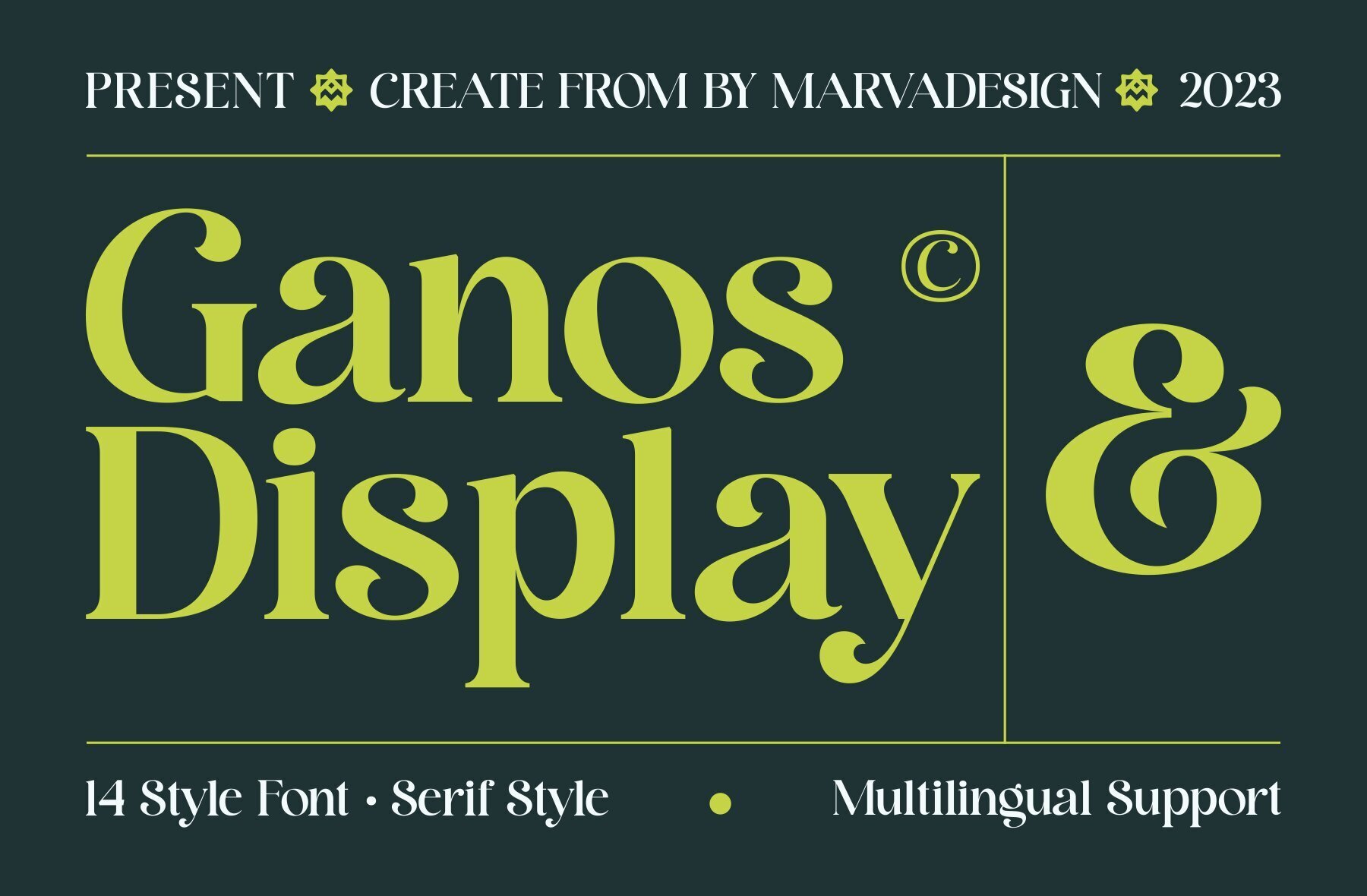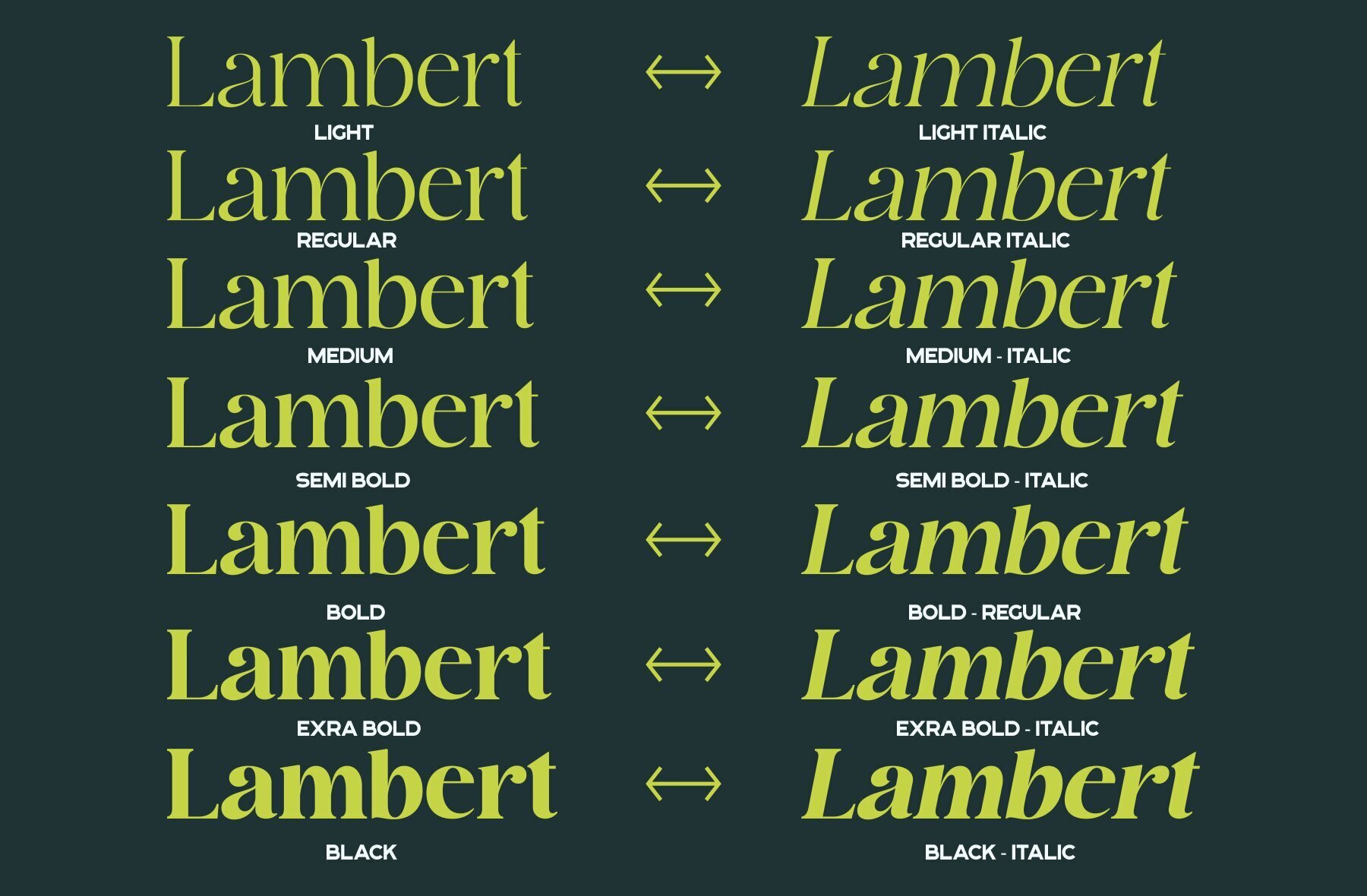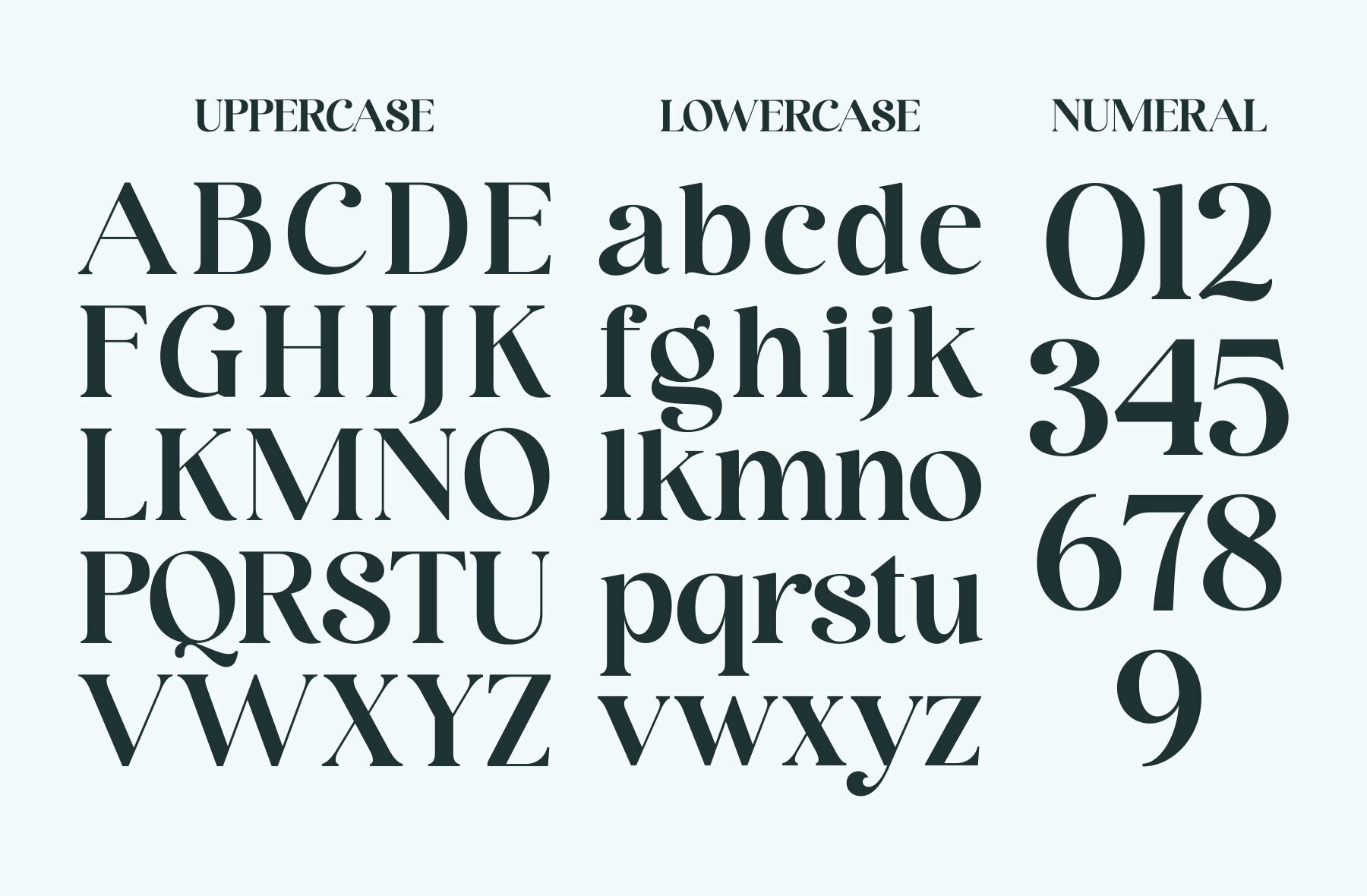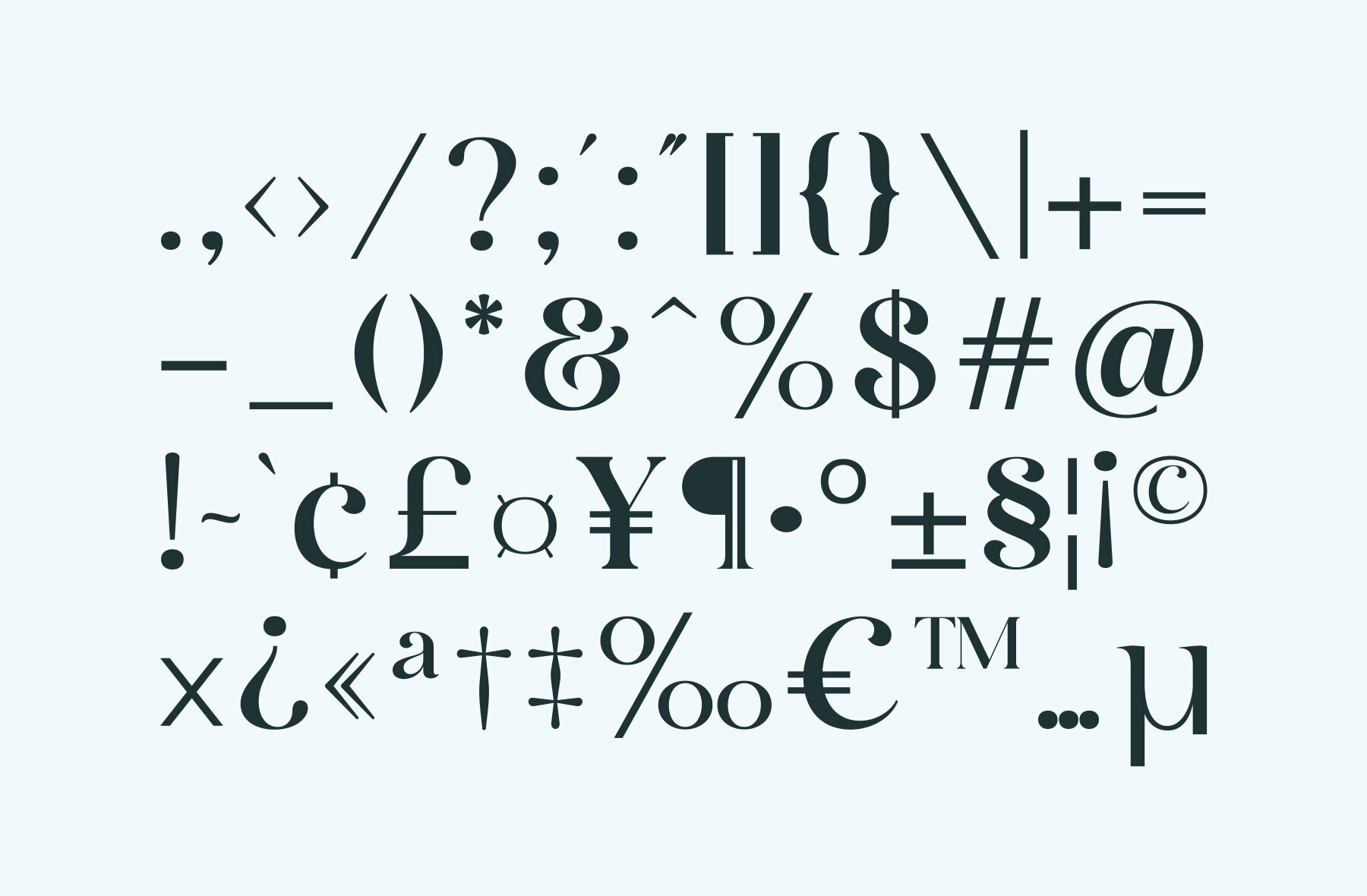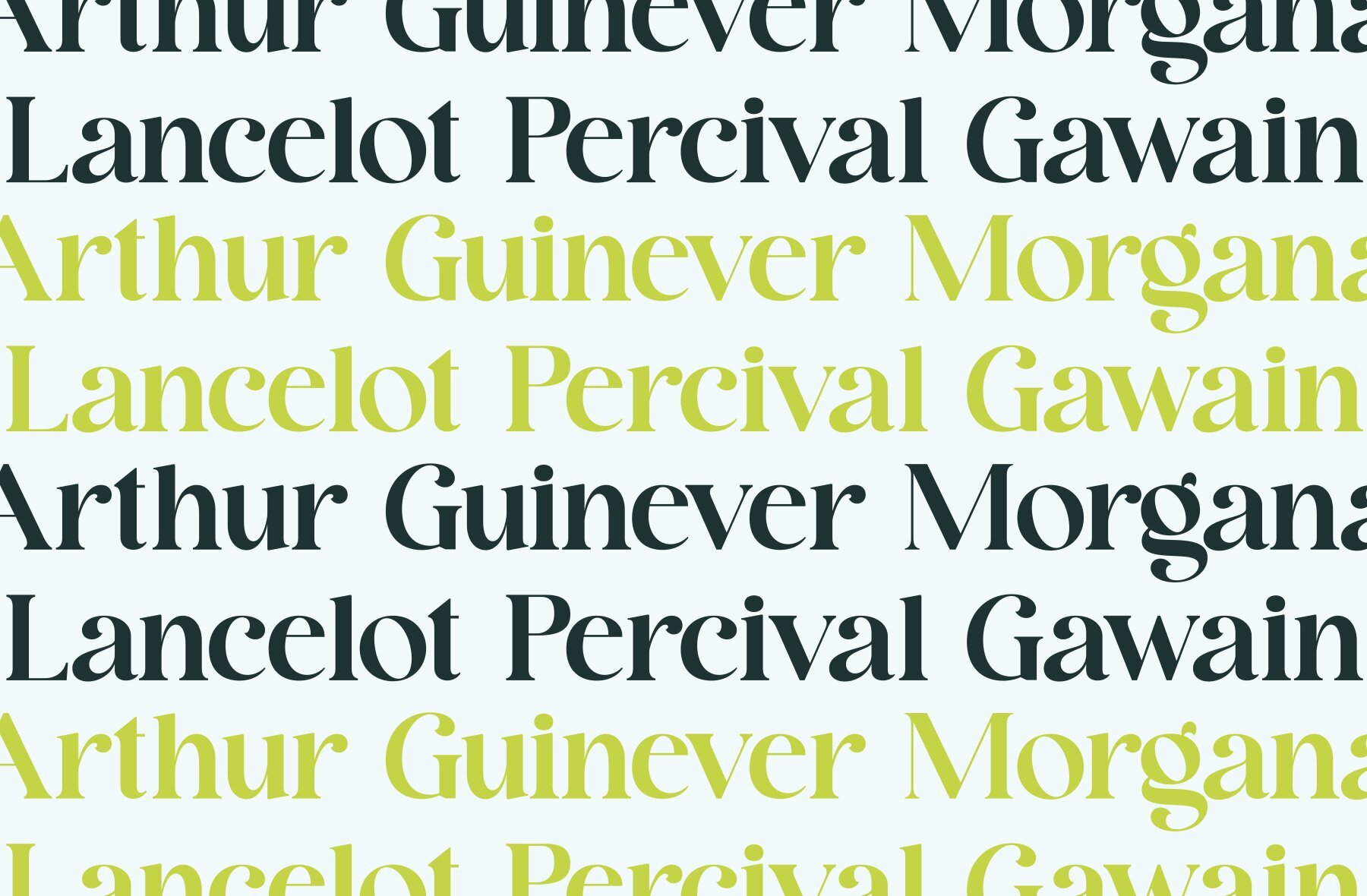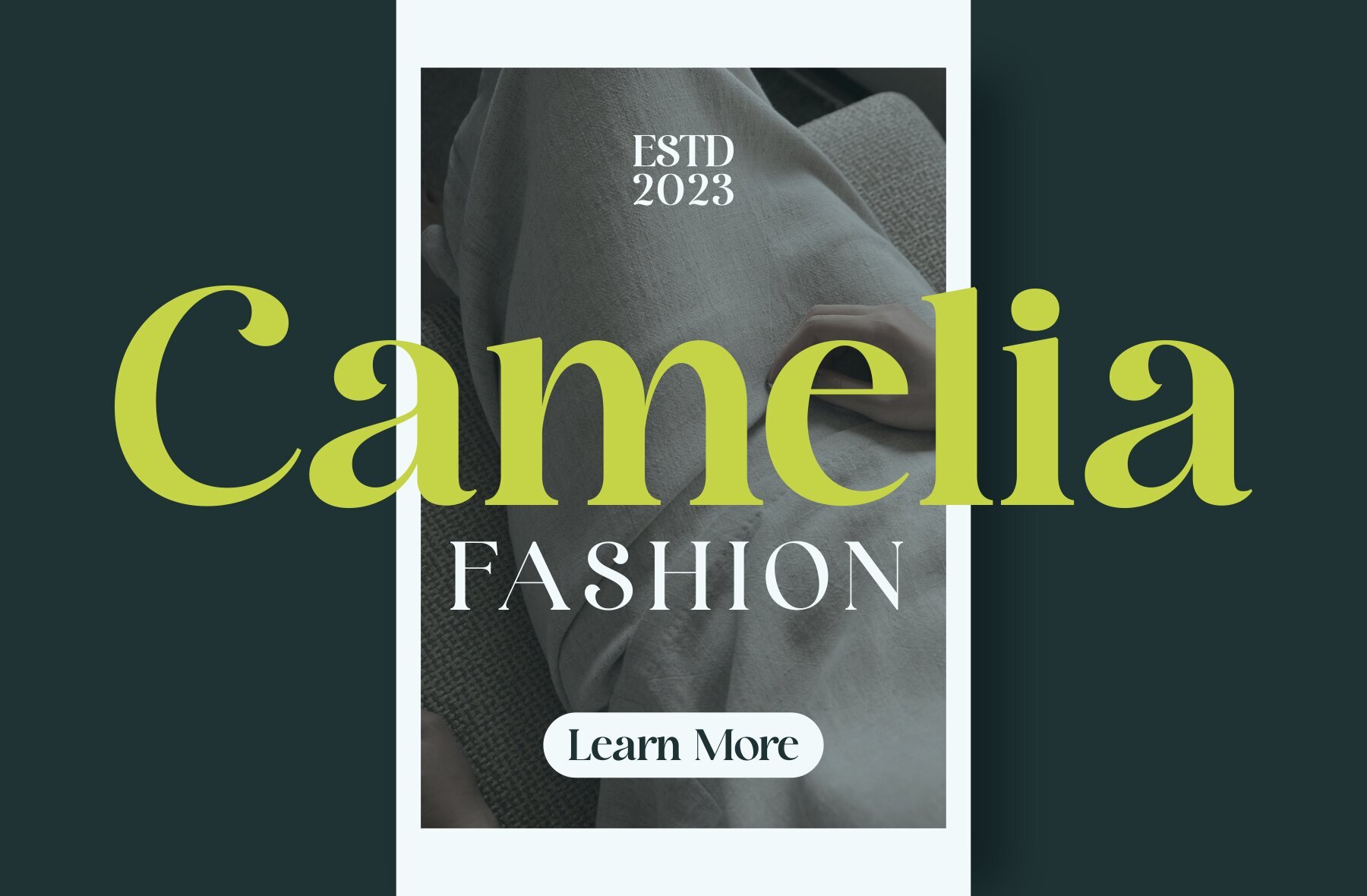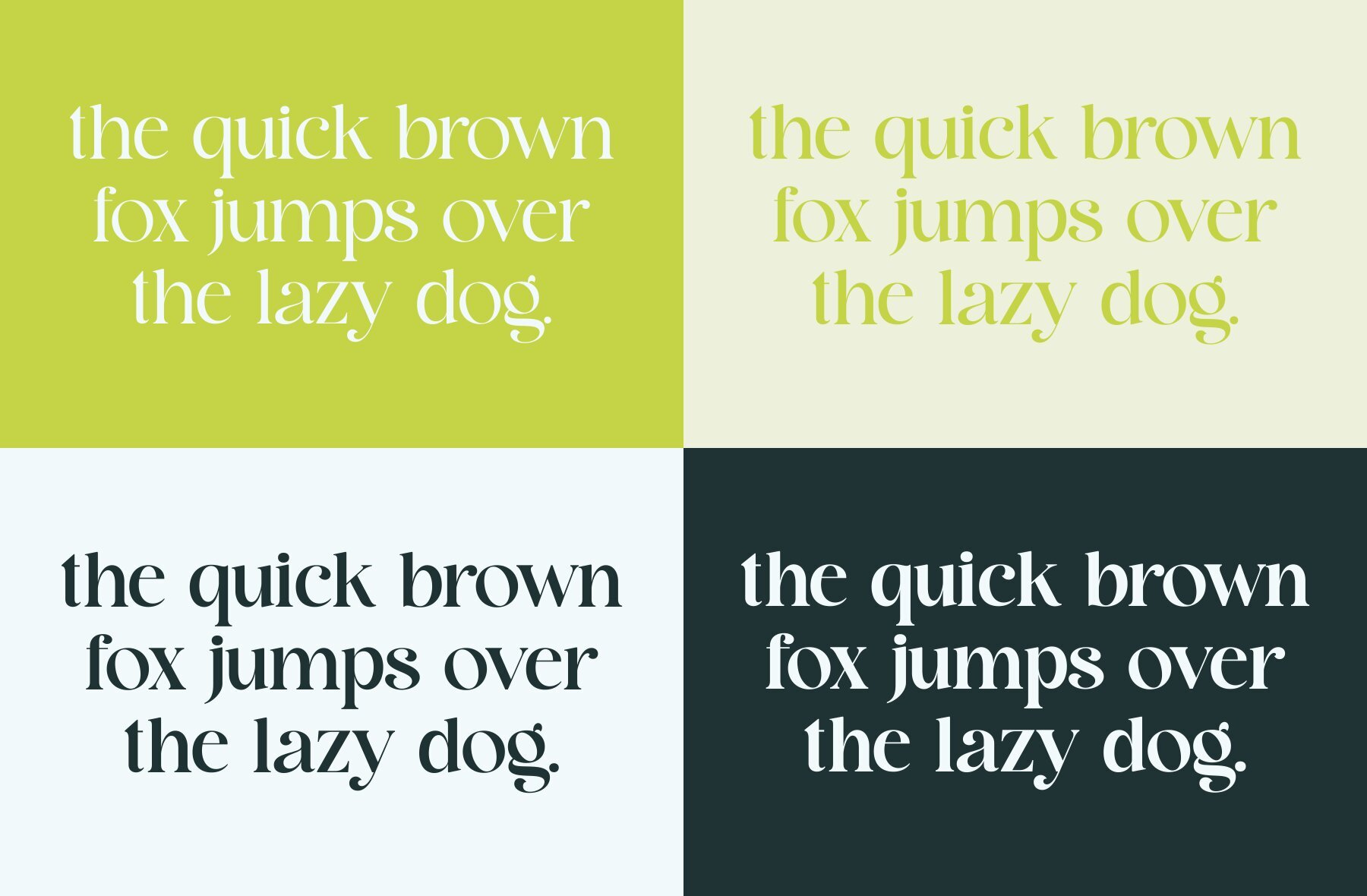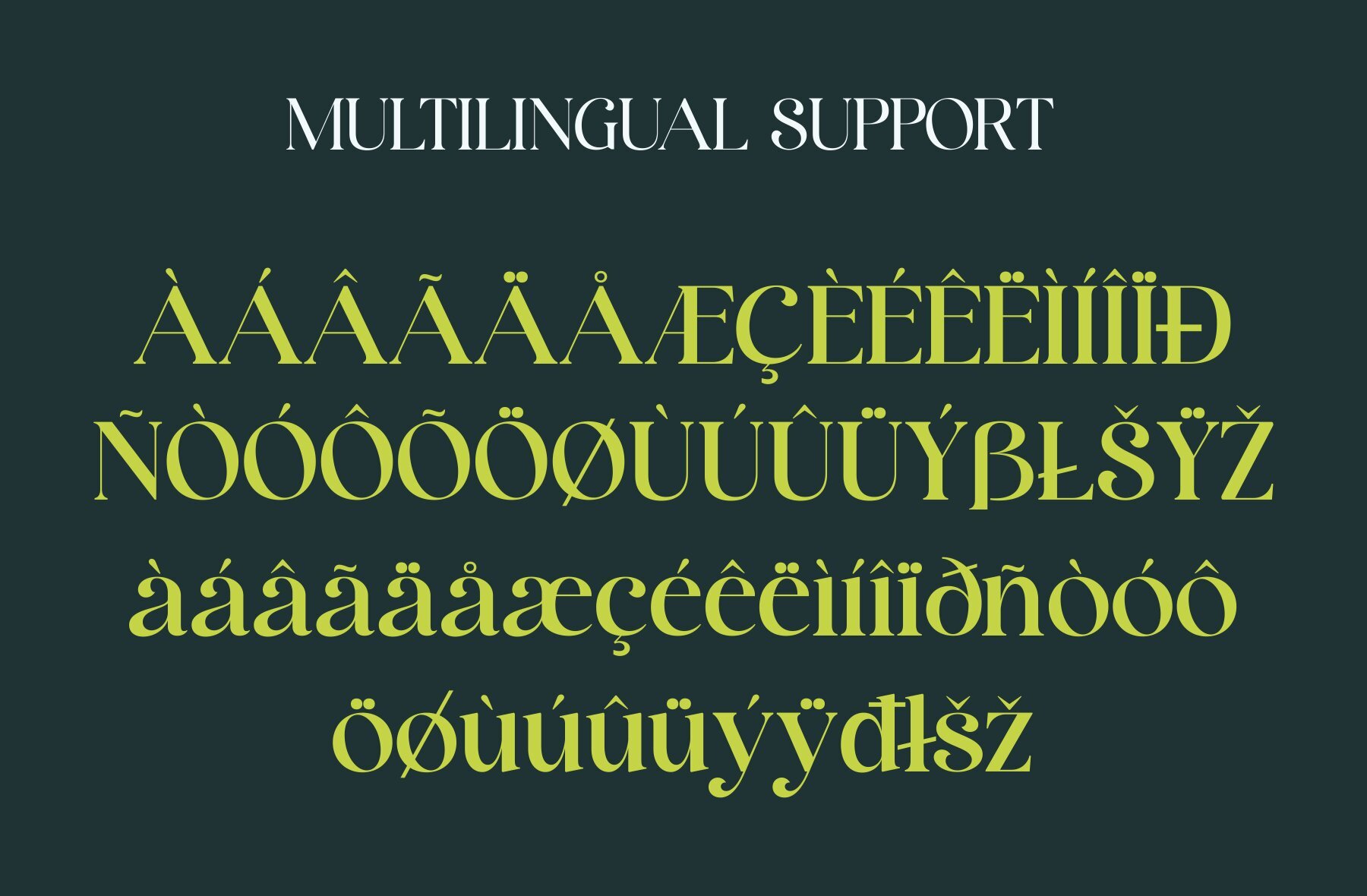
Ganos Font
The Ganos Font Family stands out as a bold, authentic display font designed to enhance a variety of branding projects. Whether you're creating a logo, template design, or product packaging, Ganos provides a modern touch that excels across diverse applications.Ganos Font Family: Bold and Versatile Display Font